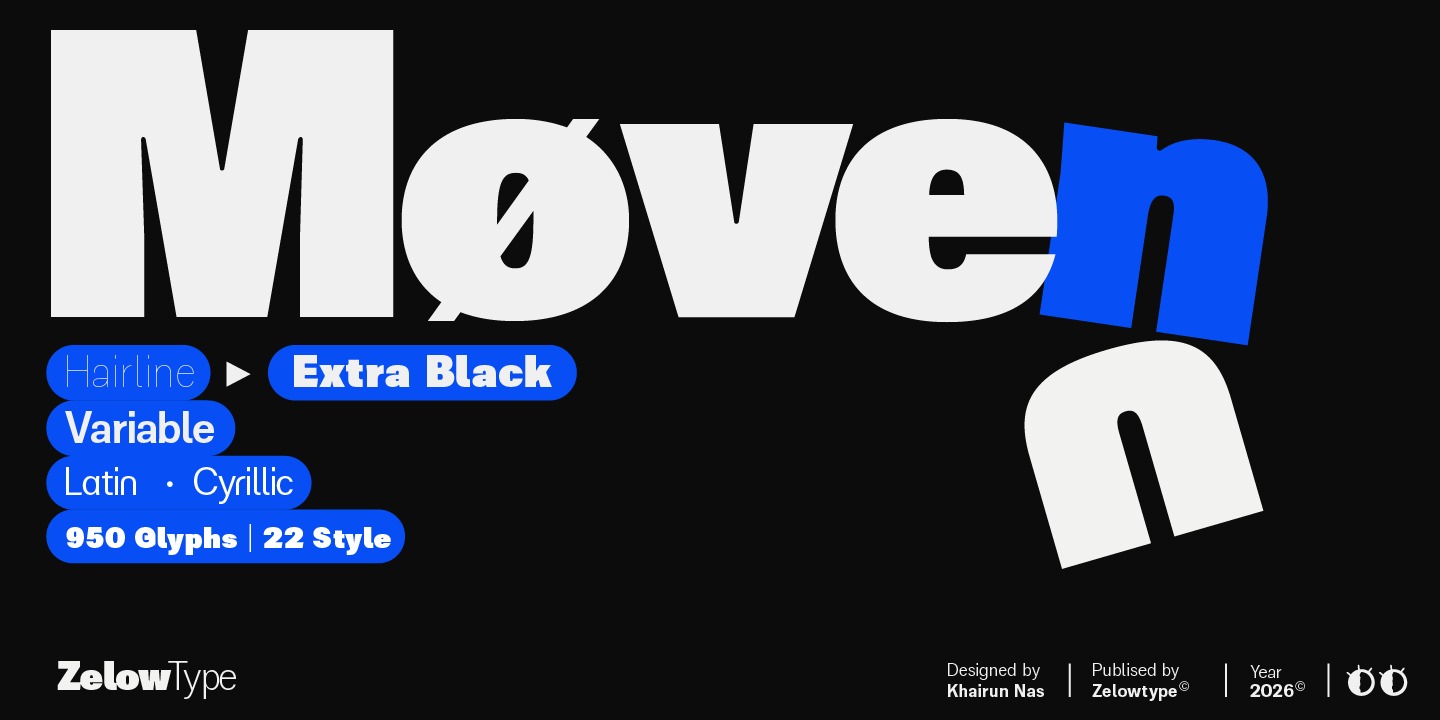
ZT Moven – Geometric Sans Serif Font
ZT Moven – Geometric Sans Serif Font is a clean and thoughtfully built typeface that works seamlessly for both professional branding and everyday creative uses. Every curve, counter, and terminal was calculated to hold its structure from the lightest Hairline to the heaviest ExtraBlack, across a single variable axis from wt 50 to wt 950. A lot of geometric sans typefaces soften or drift once you push them to the extremes — Moven doesn’t. Eleven weights in Roman, matched by eleven in Italic, twenty-two styles that move as one continuous system.
It doesn’t stop at Latin either. Moven speaks Cyrillic too, with dedicated localised forms for Bulgarian and Serbian — not a mechanical transliteration of the Latin shapes. If you’re working across Latin and Cyrillic markets at once, this is built for that, not bolted onto it afterward.
22 styles — 11 weights × Roman & Italic, Hairline to ExtraBlack
2 variable fonts — Roman & Italic, wt 50 → 950
950 glyphs
Latin Extended + Cyrillic (Russian, Ukrainian, Bulgarian, Serbian — with localised forms)
15+ OpenType features
Designer: Zelow Type